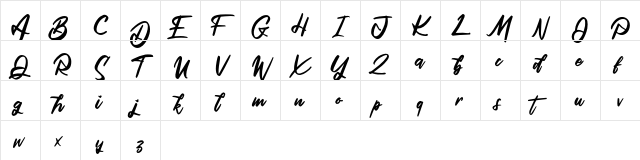
Qutapy FREE Regular
Design Context for Qutapy FREE Typeface
Qutapy FREE is a composed and adaptable typeface that performs quietly and consistently across a wide range of design contexts.